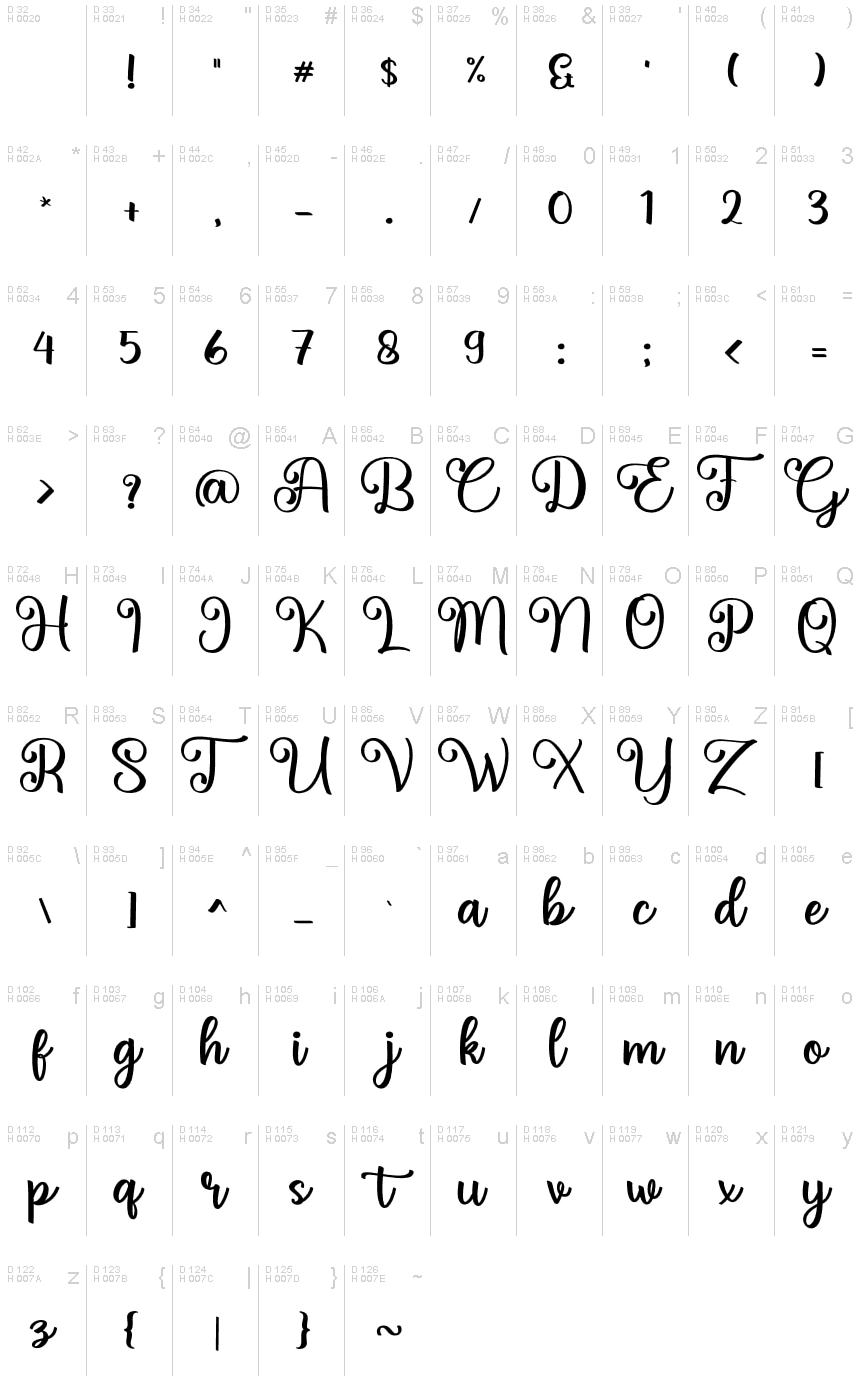
Bellcue Script
Bellcue Script font is an amazing handwritten typeface designed by dianhaniff.
Features: Bonus Bee Vector, Ending Swash, Alternates Character